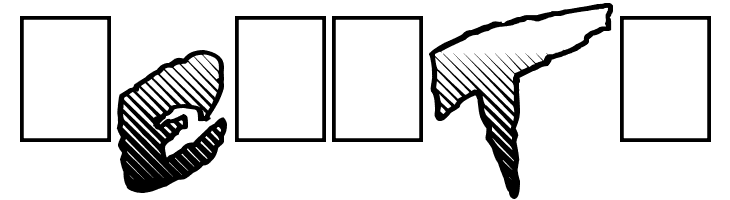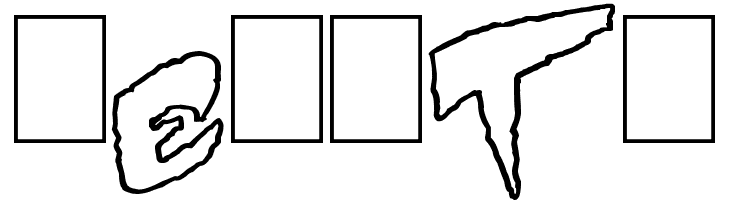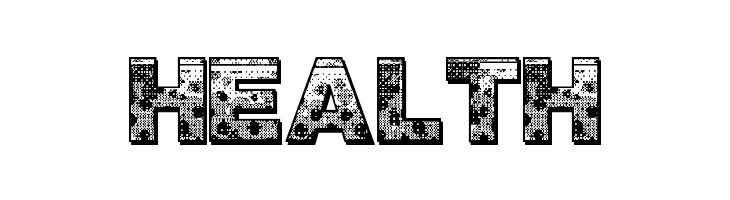
A bold, hand-drawn font with textured, shaded characters.
A bold, hand-drawn font with jagged, energetic outlines.
A bold, textured font with a rugged, distressed appearance.
A decorative and cryptic set of symbols with eye-like geometric designs.
An ornate, gothic-inspired font with intricate detailing and dramatic flair.
A bold, expressive font with a hand-drawn, marker-like style.
A bold, pixelated decorative font with a digital retro style.